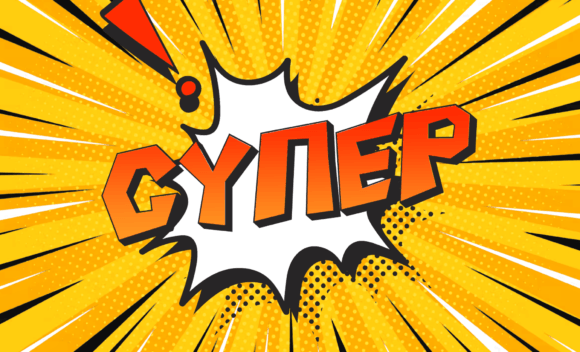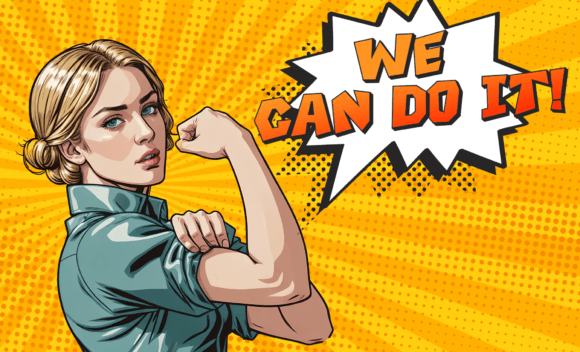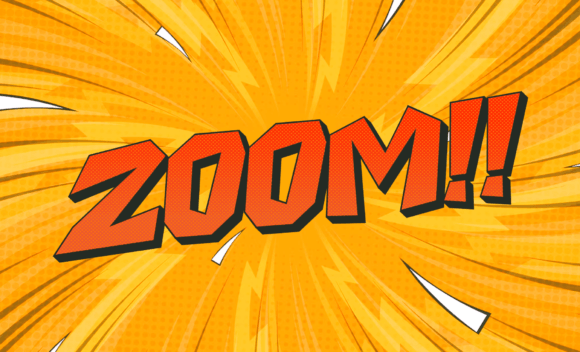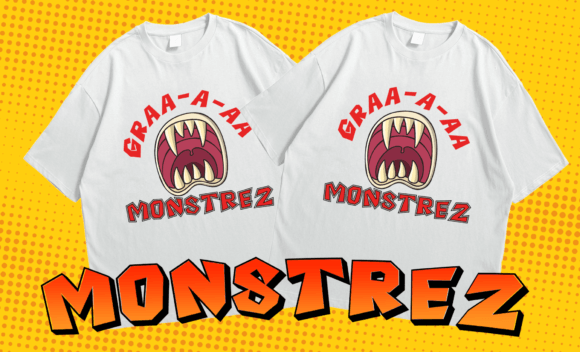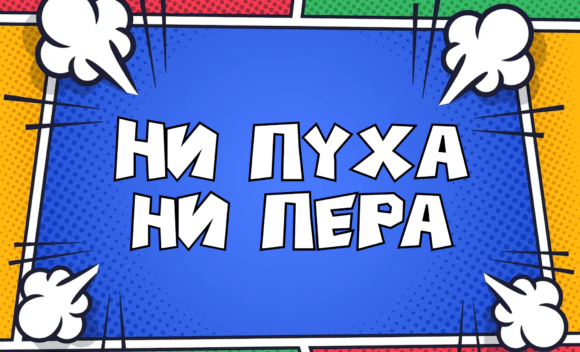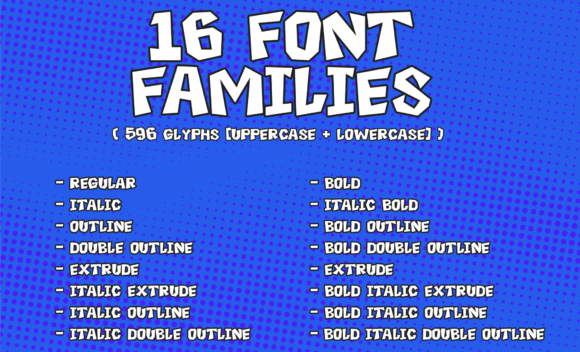
Introducing Boxtoon Font: The Ultimate Comic Font for Creative Adventures
Are you ready to add a dash of fun and whimsy to your designs? Look no further than Boxtoon Font, a lively comic font that combines the nostalgia of classic cartoons with a bold, modern-retro twist. This versatile font is perfect for designers, crafters, and creatives looking to bring a playful edge to their projects.
The Perfect Blend of Nostalgia and Modernity
Boxtoon Font seamlessly blends the charm of classic cartoons with a contemporary edge, making it the perfect choice for dynamic displays, comics, posters, book covers, and playful designs like t-shirts, games, and digital crafts. With its bold lines, bright personality, and modern-retro twist, Boxtoon Font is sure to capture the attention of your audience and leave a lasting impression.
16 Versatile Styles to Suit Your Creative Needs
One of the standout features of Boxtoon Font is its impressive range of 16 versatile styles. Whether you’re looking for a bold and playful font or a more subtle and sophisticated one, Boxtoon Font has got you covered. This multilingual marvel supports Cyrillic characters, making it the perfect choice for designers working with a global audience.
So, what can you create with Boxtoon Font? The possibilities are endless! Here are just a few ideas to get you started:
- Dynamic displays and comics that pop with personality
- Eye-catching posters and book covers that grab attention
- Playful designs for t-shirts, games, and digital crafts
- Whimsical kid’s books and educational materials
- Social media graphics and animations that bring your brand to life
Why Choose Boxtoon Font?
So, why should you choose Boxtoon Font for your creative projects? Here are just a few reasons:
- Unique and playful style: Boxtoon Font offers a fresh and unique take on traditional comic fonts, making it perfect for designers looking to stand out from the crowd.
- Versatility: With 16 styles to choose from, Boxtoon Font can be used for a wide range of creative projects, from dynamic displays to playful designs.
- Multilingual support: Boxtoon Font supports Cyrillic characters, making it the perfect choice for designers working with a global audience.
Embracing the Whimsical Charm of Boxtoon Font
Boxtoon Font brings a whimsical charm to kid’s books and beyond, making it the perfect choice for designers looking to create playful and engaging content. Whether you’re creating educational materials, social media graphics, or digital crafts, Boxtoon Font is sure to bring a smile to your audience’s face.
In conclusion, Boxtoon Font is a lively comic font that combines the nostalgia of classic cartoons with a bold, modern-retro twist. With its 16 versatile styles, multilingual support, and whimsical charm, Boxtoon Font is the perfect choice for designers, crafters, and creatives looking to add a dash of fun and playfulness to their projects. So, why wait? Download Boxtoon Font today and start creating!